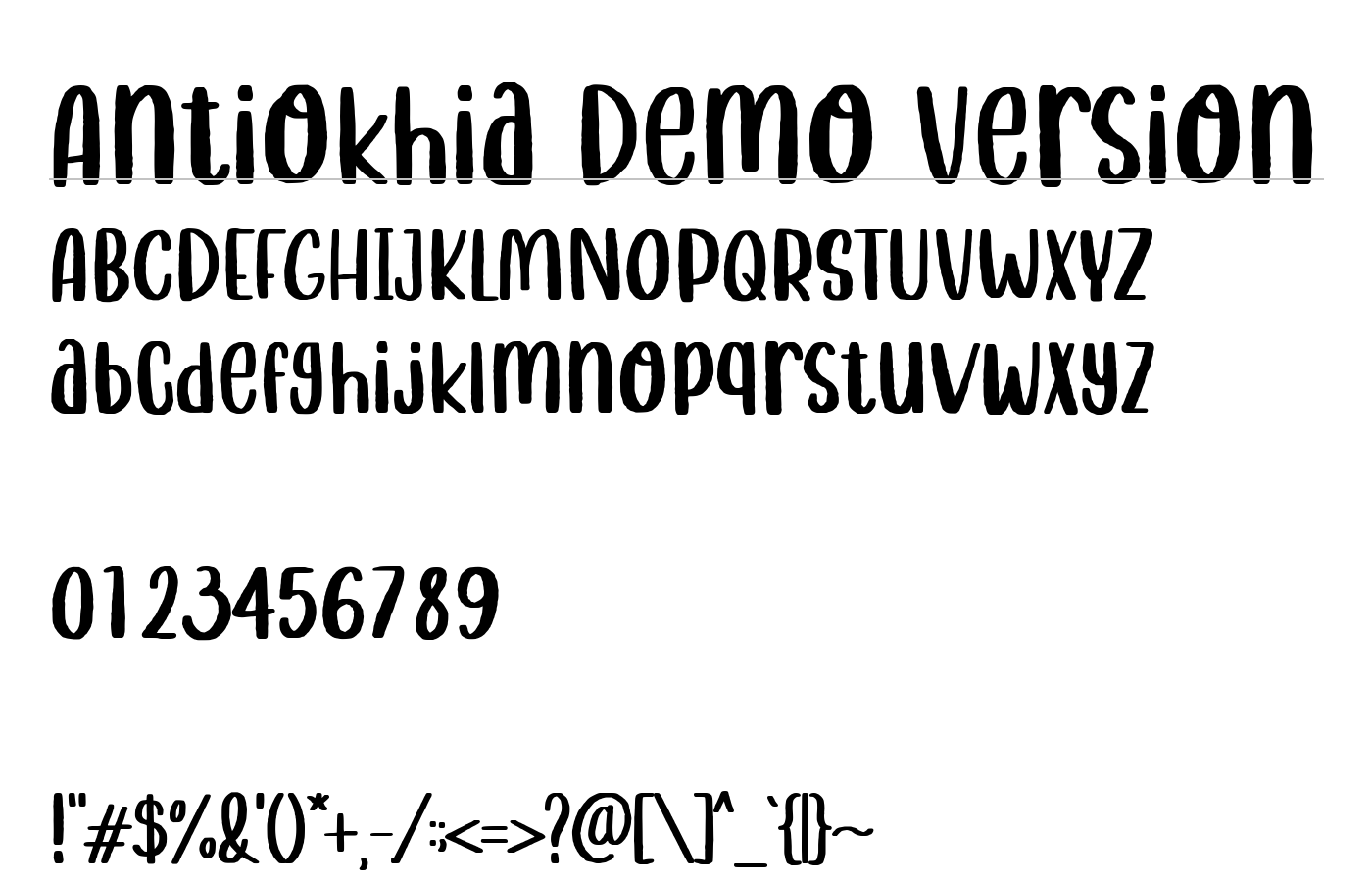
Antiokhia Demo Version is a playful, hand-drawn sans serif font with a tall, narrow structure and slightly uneven strokes that add charm and personality. Its organic shapes and friendly style make it ideal for creative projects, casual branding, and engaging headlines, bringing a warm and approachable feel to any design. This font works well where a unique, informal touch is desired without sacrificing readability.
Antiokhia Demo Version Font